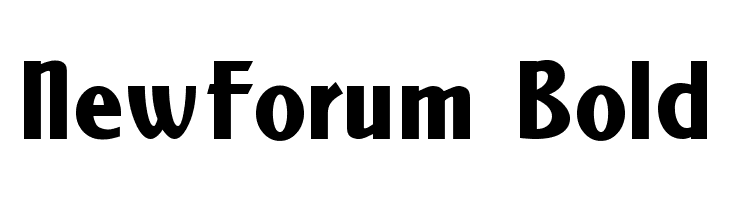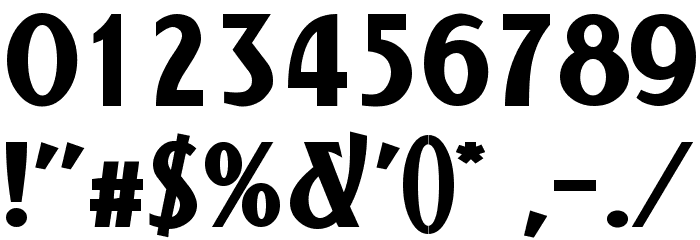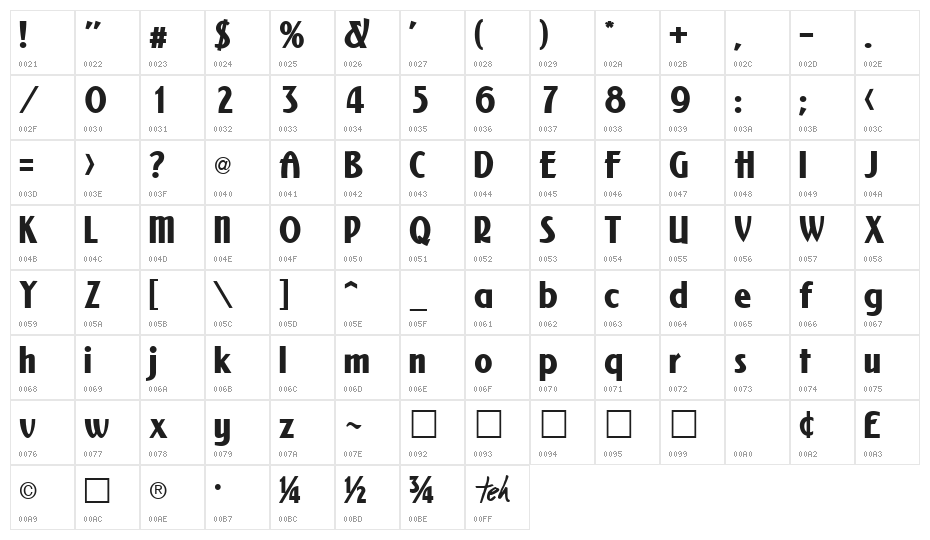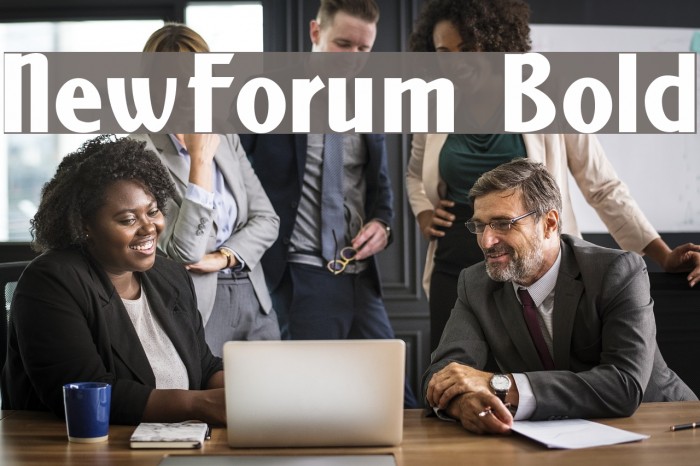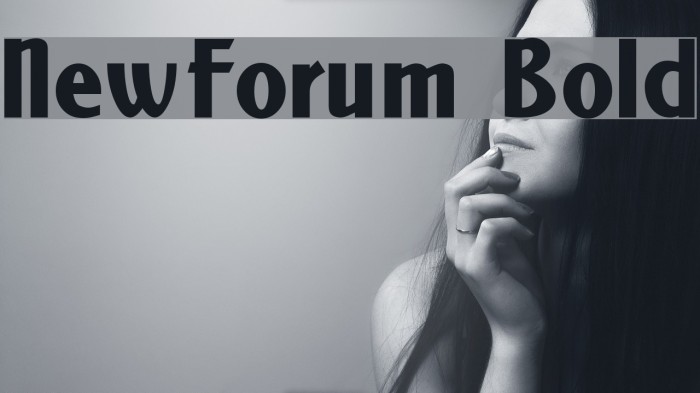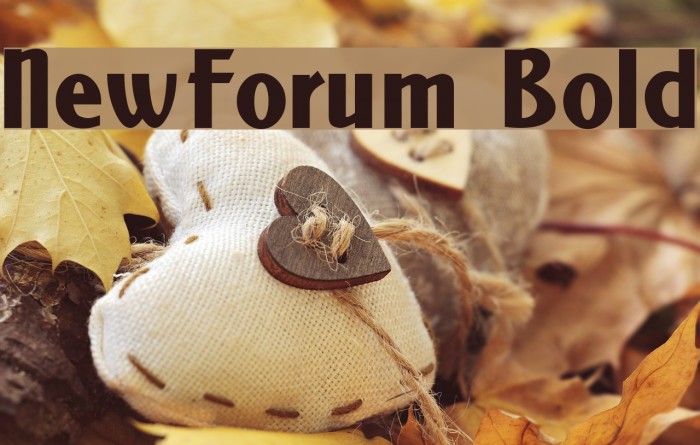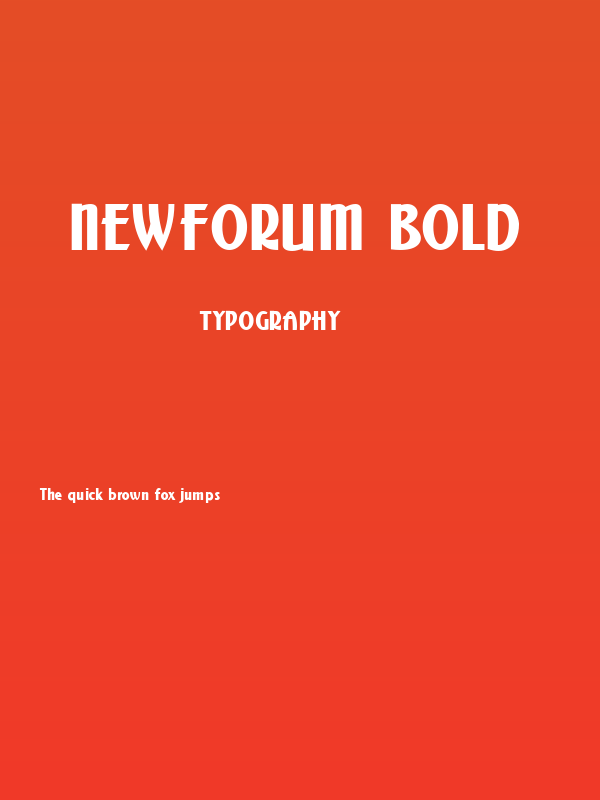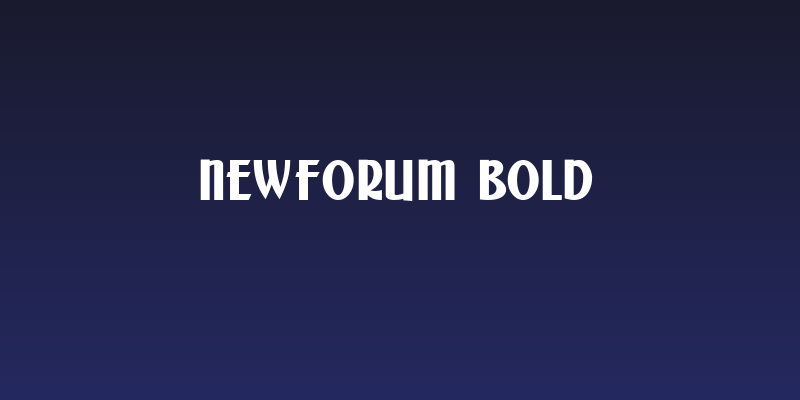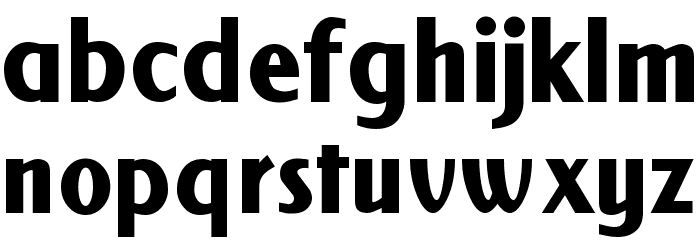
NewForum Bold Font
NewForum Bold Description
This font features a bold and dynamic style with a strong presence. The characters are slightly condensed, giving it a compact and powerful look. The strokes are thick and consistent, providing a uniform appearance across all characters. The uppercase letters have a commanding presence, while the lowercase letters maintain readability with a touch of elegance. The numerals are clear and distinct, making them suitable for various applications. Special characters are well-defined, adding versatility to the font. Overall, this font combines modern aesthetics with a classic touch, making it suitable for a wide range of design projects.